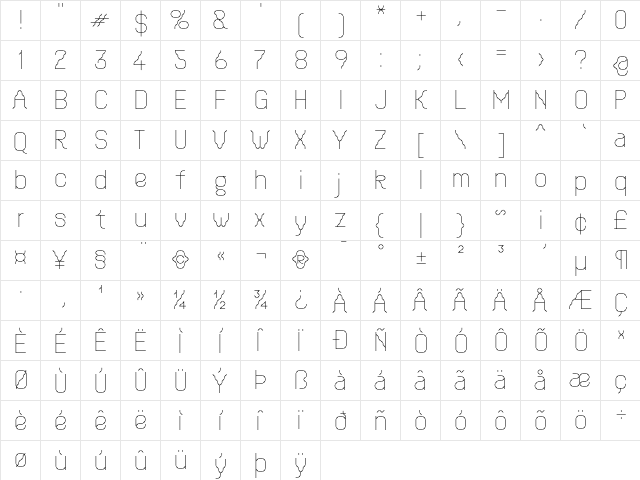
Mantis Regular
Design Context for Mantis Typeface
Mantis takes a measured approach to typography — its balanced proportions and neutral character make it a reliable workhorse for both digital and print work.